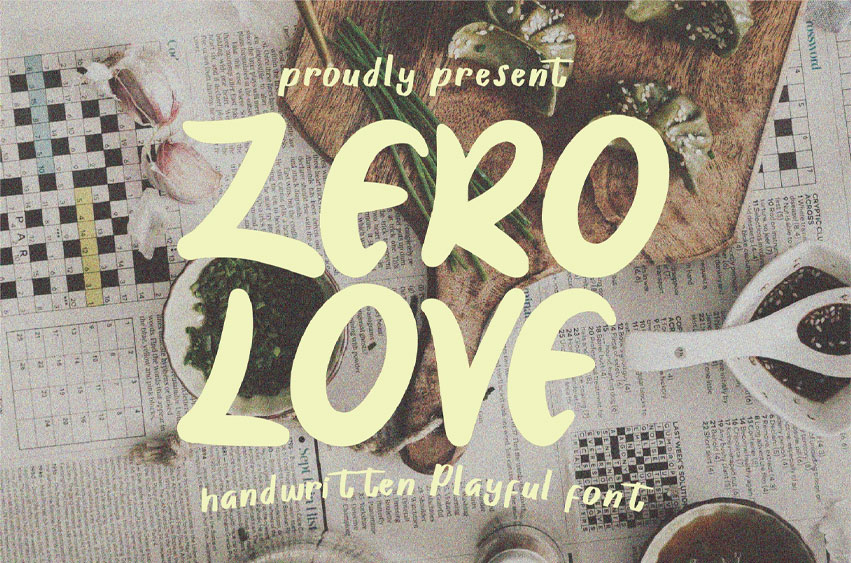
Zerolove Font is a cute and cheerful font made for fun, kid-friendly designs. With its soft curves and playful style, it’s perfect for children’s books, games, toys, and birthday invites.
Zerolove brings a sense of happiness and imagination to every project!